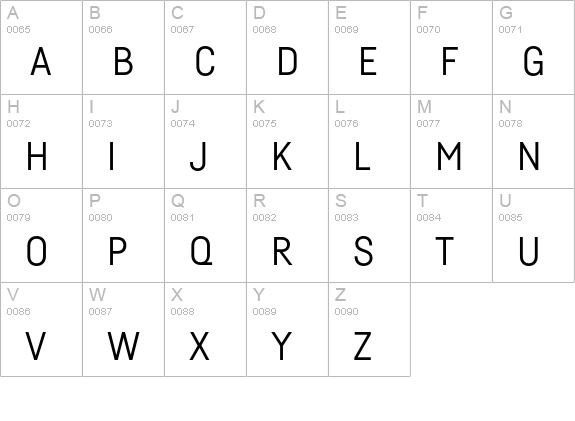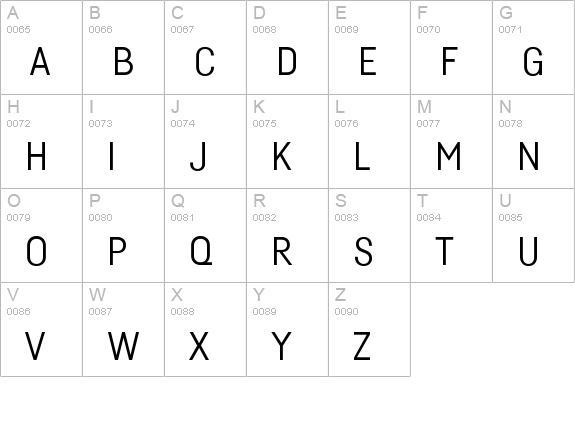
Fabrikat Regular Font Details
Fabrikat Regular is the standard, neutral variant in the Fabrikat typeface family \xE2\x80\x94 well suited to general body text, paragraphs, and standard typographic work.
Fabrikat Regular is a modern and elegant font that combines simplicity with sophistication. Its clean lines and sharp angles give it a sleek and professional look, making it perfect for a wide range of design projects. The font's versatility allows it to be used for both headings and body text, adding a touch of class to any layout. One of the best things about Fabrikat Regular is that it is completely free to download. You can easily get your hands on this stylish font by visiting FontsMarket.com and adding it to your collection. Whether you're working on a website, a poster, a brochure, or any other creative project, Fabrikat Regular is sure to elevate your design and leave a lasting impression. Don't miss out on this fantastic opportunity to enhance your work with this gorgeous font!